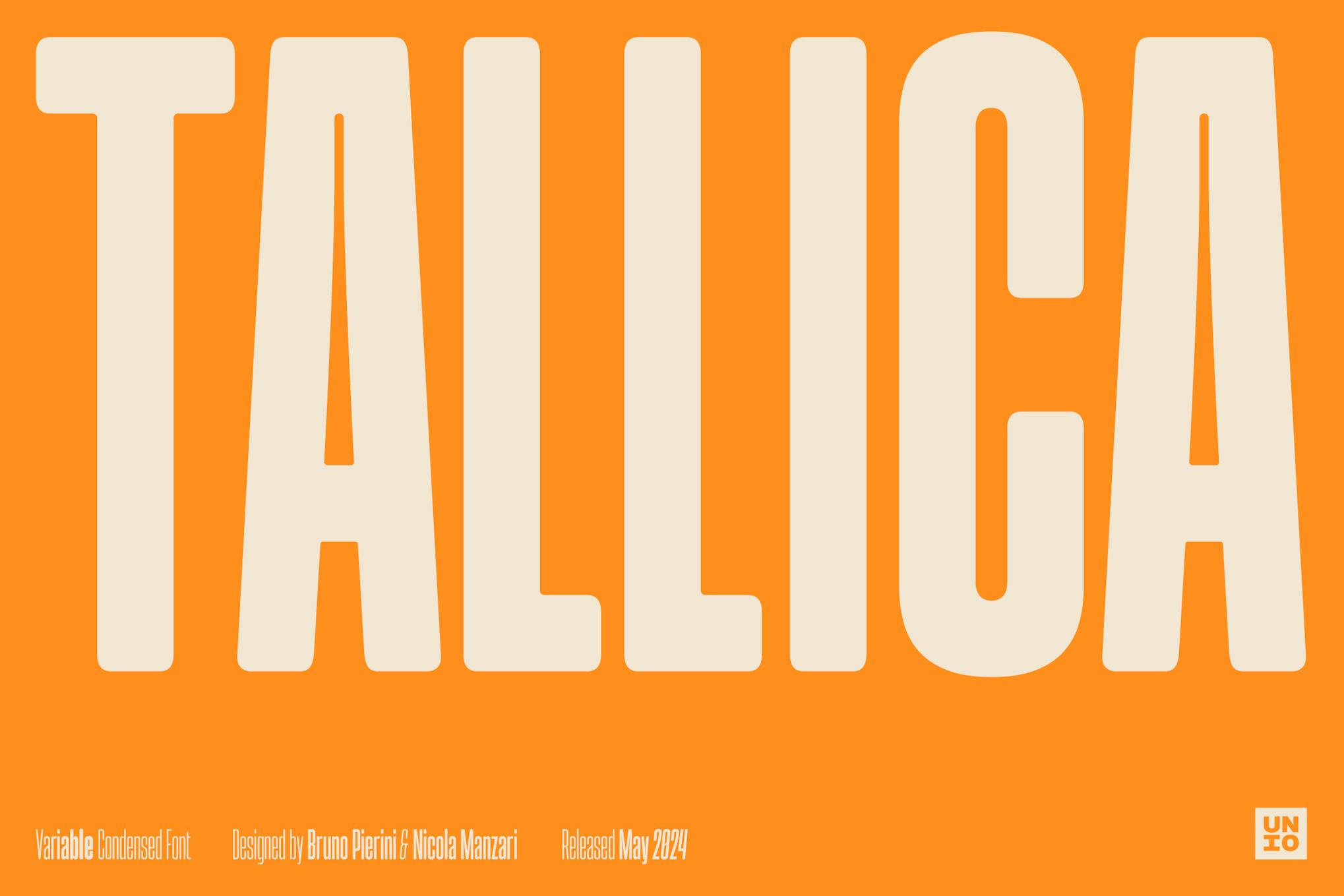
Tallica - Variable Typeface Font
The Tallica - Variable Typeface Font is perfect for responsive web design, dynamic brand identities, adaptive mobile interfaces, flexible presentation systems, scalable digital campaigns, interactive design projects, progressive web applications, motion graphics typography, versatile editorial layouts, and innovative user experience designs.
What makes the Tallica - Variable Typeface Font so exciting is its revolutionary variable font technology that provides infinite customization possibilities through seamless weight and width adjustments in a single font file. This cutting-edge typeface features advanced OpenType variable capabilities, smooth interpolation between styles, and dynamic adaptation features that create unprecedented flexibility for modern digital design workflows. The font's variable technology and future-forward approach make it an exceptional choice for designers seeking maximum typographic control, file efficiency, and creative freedom in contemporary digital environments.
The Tallica - Variable Typeface Font family includes comprehensive variable axes, featuring weight variations from Thin to Black, width adjustments from Condensed to Extended, and optical size optimization. Each variable axis maintains perfect interpolation quality while offering infinite customization possibilities between predefined instances, providing designers with complete typographic control for creating unique brand expressions and responsive design systems.
The advanced variable technology of Tallica - Variable Typeface Font showcases expert modern typography engineering, with each character optimized for smooth interpolation, consistent optical qualities, and perfect rendering across all variable instances. The font's comprehensive character set includes international language support, advanced OpenType features, variable-optimized spacing, and technical symbols, ensuring complete functionality for professional variable font workflows and global applications.
Specifically engineered for modern digital environments, this remarkable variable font maintains perfect quality and performance across all instances, platforms, and applications. From lightweight mobile interfaces to high-resolution desktop displays, Tallica - Variable Typeface Font performs exceptionally while providing unprecedented typographic flexibility and file efficiency.